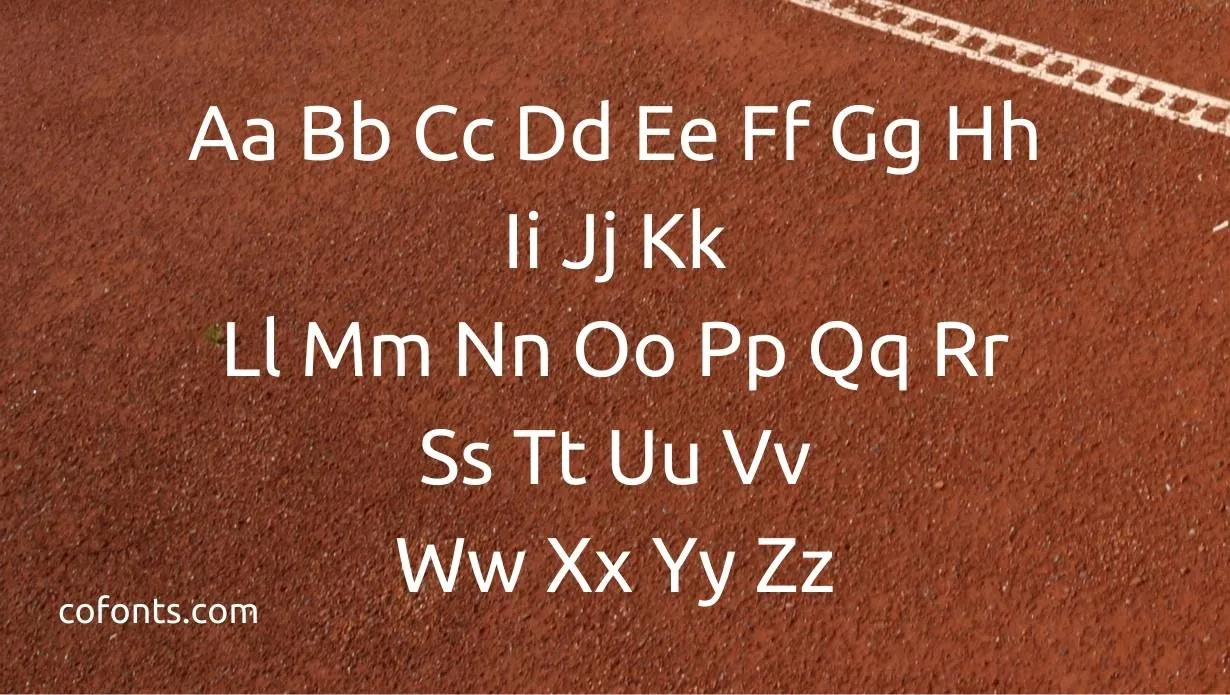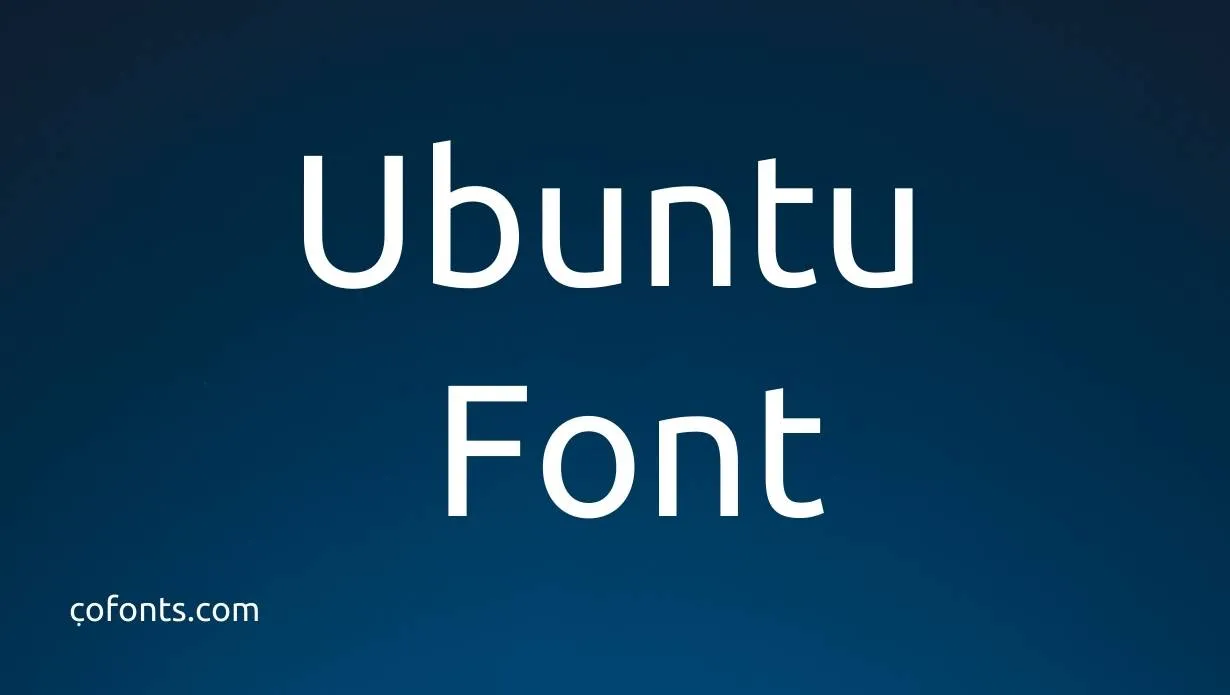
About Ubuntu Font Free Download
Ubuntu Font Free Download is a modern typeface available in multiple variants and styles.
- Ubuntu Font Regular
- Ubuntu Font Bold
- Ubuntu Font Italic